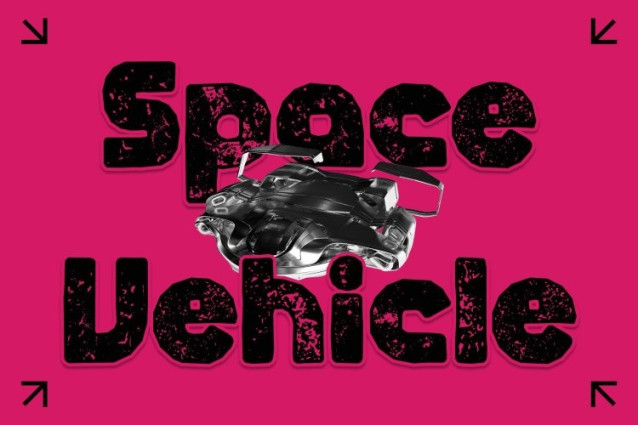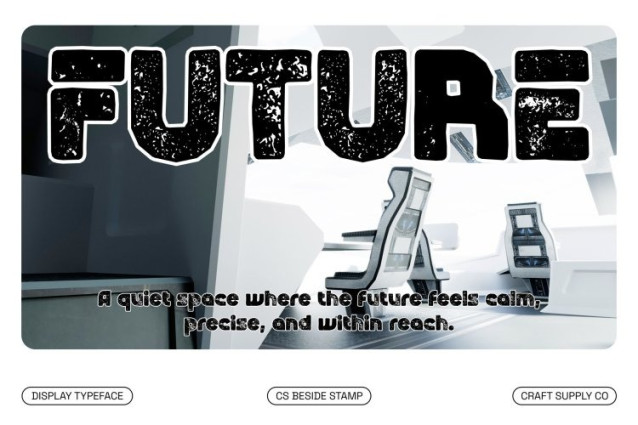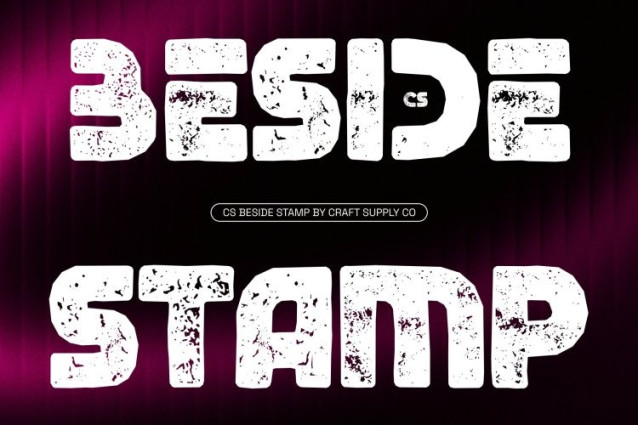
CS Beside Stamp Font – This retains its strong, attention-grabbing display forms but now carries a distressed, stamped texture that evokes the feel of old printing techniques. The edges of each letter are subtly roughened, and the geometric shapes gain irregularities that hint at handcrafted or vintage industrial production. This effect softens the futuristic sharpness with an artistic, tactile layer, adding personality and visual depth.
Vintage Character Meets Futuristic Design
While the font’s experimental and geometric qualities remain, the stamp effect introduces subtle imperfections reminiscent of inked signage or retro letterpress. The result is a striking combination: a modern, bold aesthetic infused with historical texture and character, giving your designs both edge and authenticity.
Ideal for Posters, Branding, and Retro-Futuristic Projects
This is perfect for applications that demand high-impact typography with artistic flair. Posters, editorial spreads, event graphics, and tech-inspired branding all benefit from its blend of contemporary boldness and vintage texture. It transforms futuristic experimental forms into something visually rich, memorable, and tactile.
Dynamic, Bold, and Distinctive
With the stamped texture, every letter communicates strength, creativity, and style. The font now balances modern experimental design with retro-artistic charm, making your projects feel both futuristic and rooted in a timeless visual tradition.